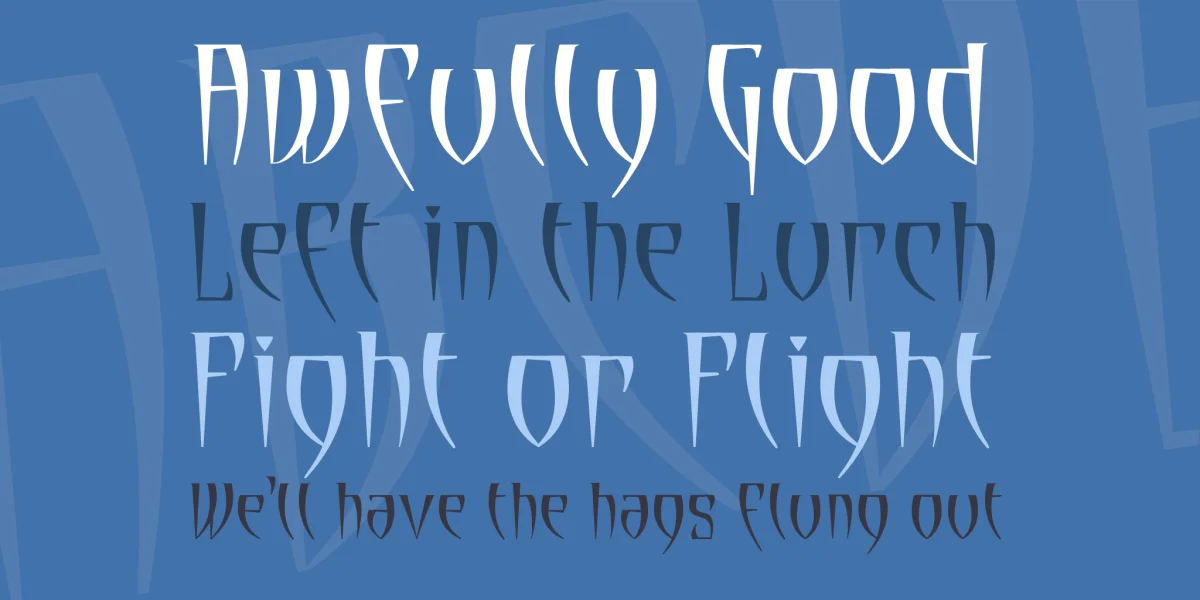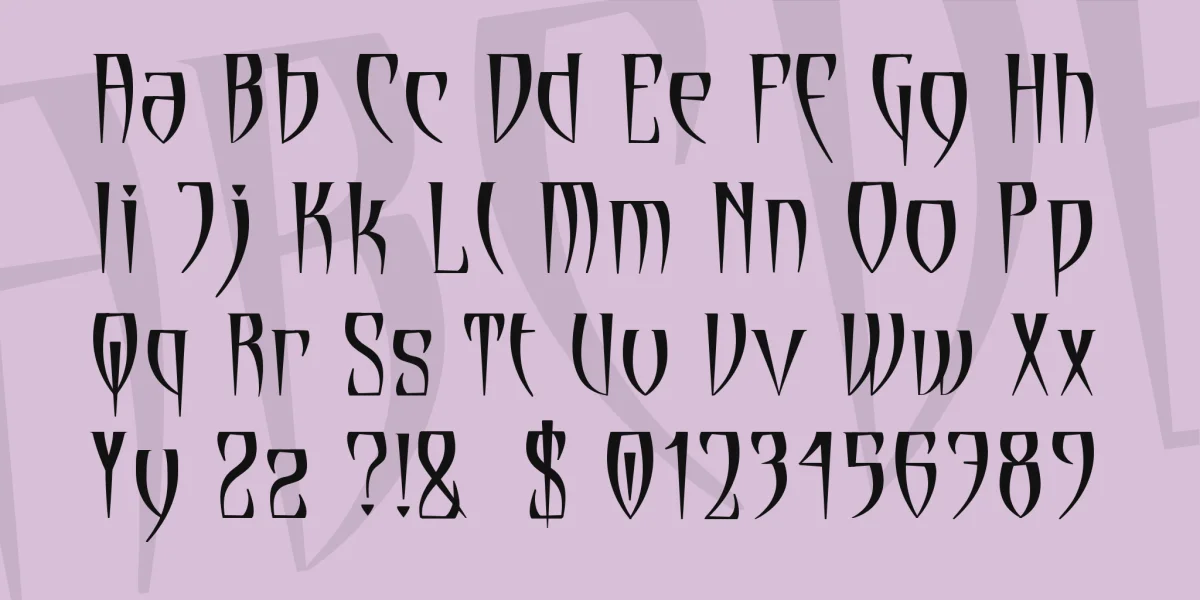
Thin, tall and jagged, the letters were given a classy, yet horrifying appeal. A strong horizontal line runs across the x-height and cap height for visual continuity. Best used as a display font for all things creepy, classy, or gothic.